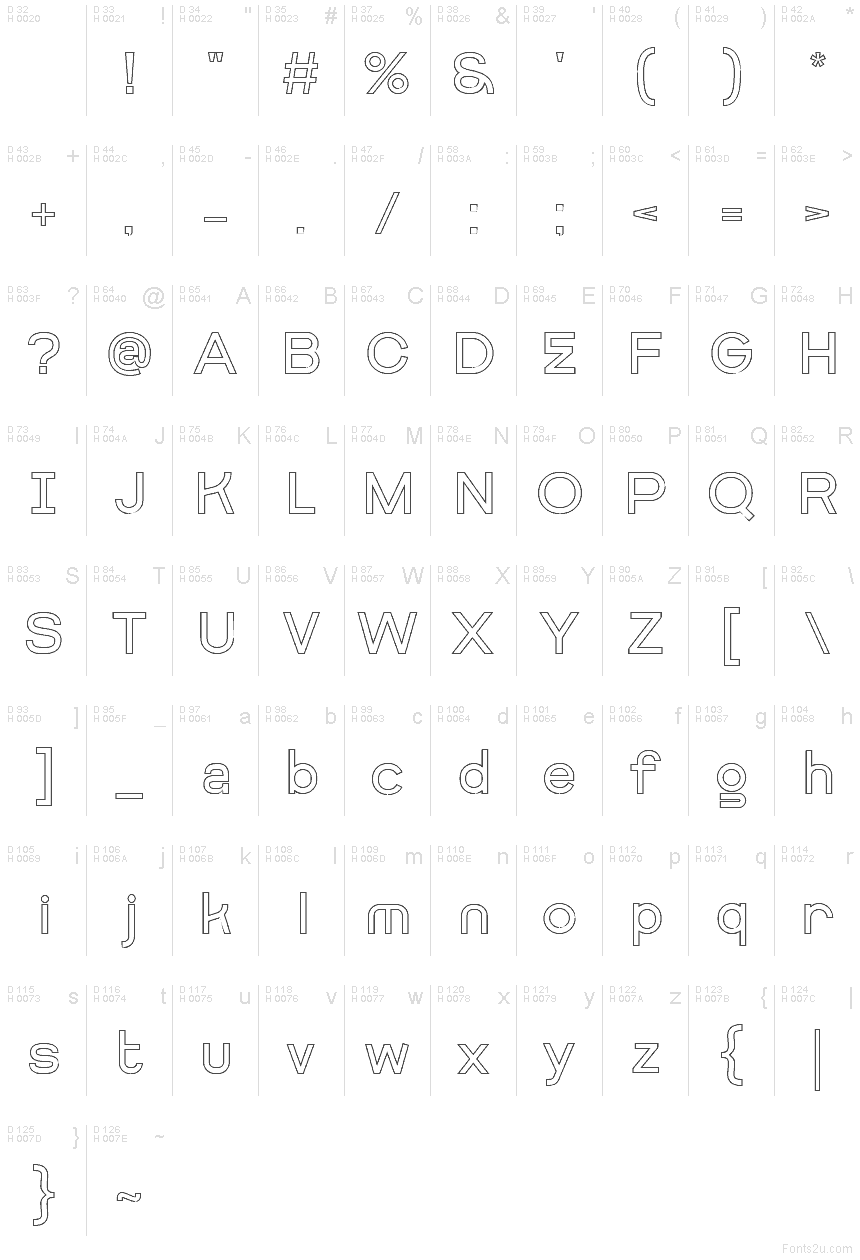
Getboreg Hollow
Getboreg Hollow font by Ffeeaarr is a free outlined sans serif typeface. Part of the Getboreg family, it traces soft, rounded shapes with a crisp single-line edge, giving letters a buoyant, airy feel without losing structure. The rhythm is steady and generous, so words read cleanly even as the interior remains open and light.
Using Getboreg Hollow, you get a modern outline look that shines on posters, tech branding, packaging, event flyers, social graphics, and album art. Its consistent geometry and smooth curves create a cool, wireframe vibe that stands out without shouting. This free font works beautifully at larger sizes; pair it with a solid-weight geometric sans for body copy to anchor the hollow forms.